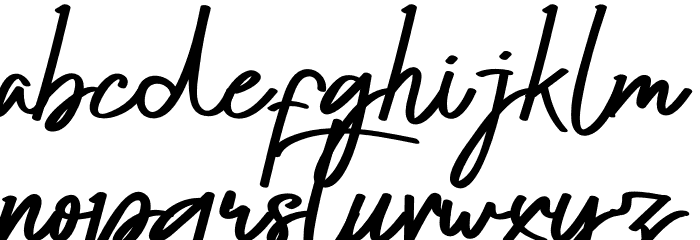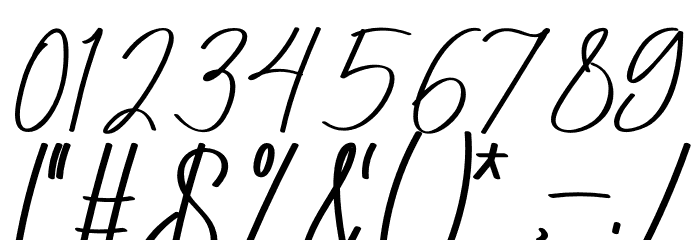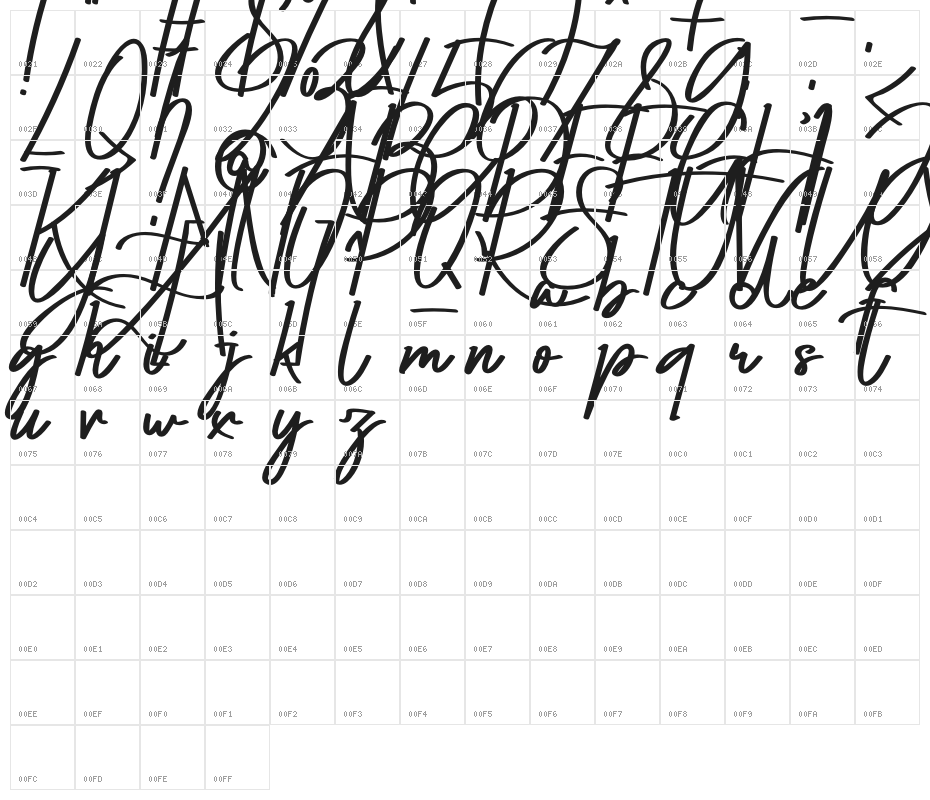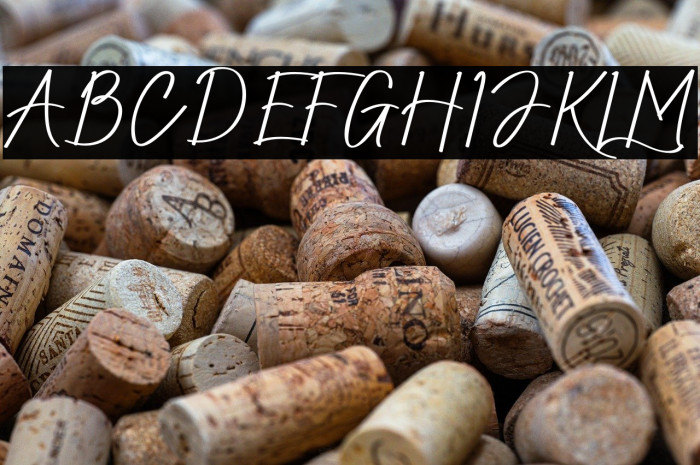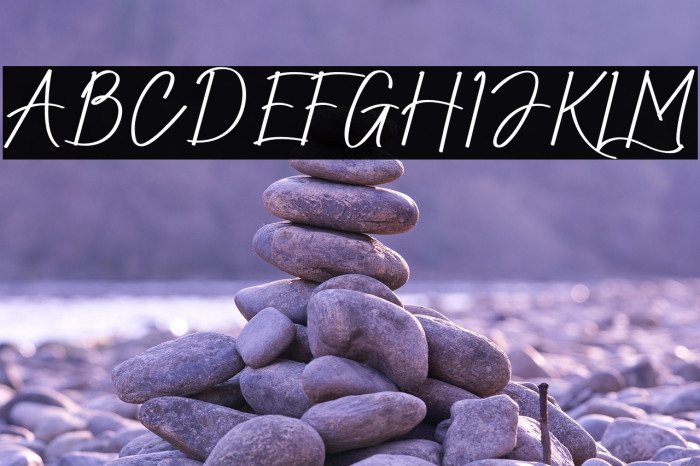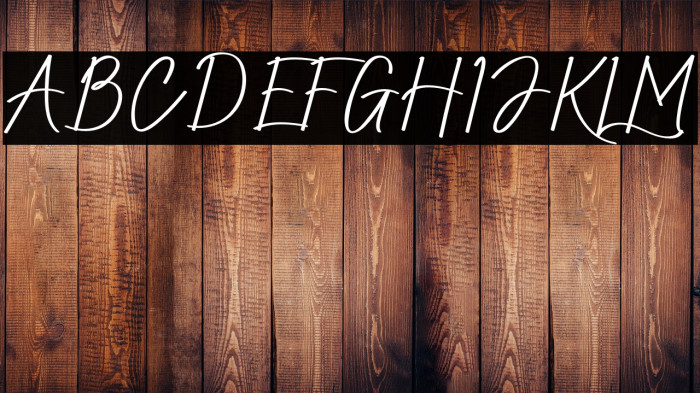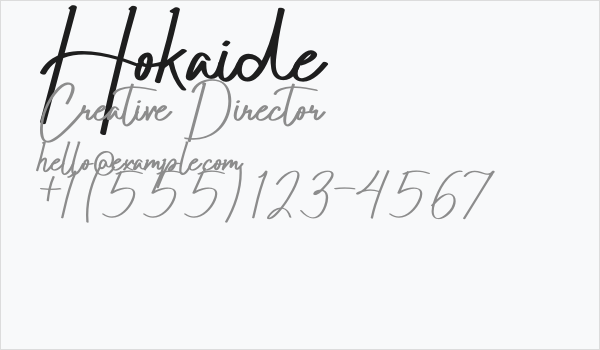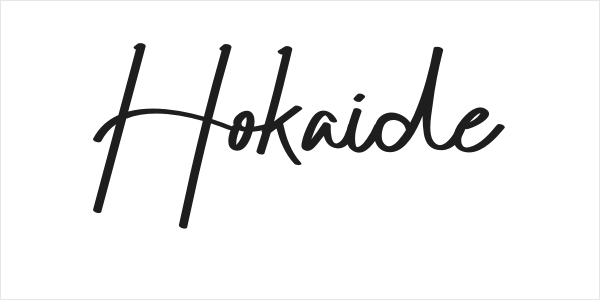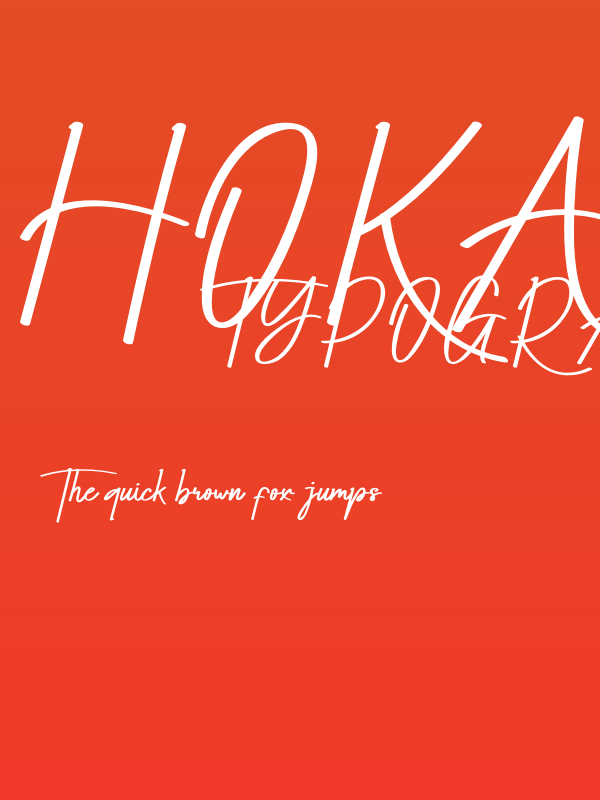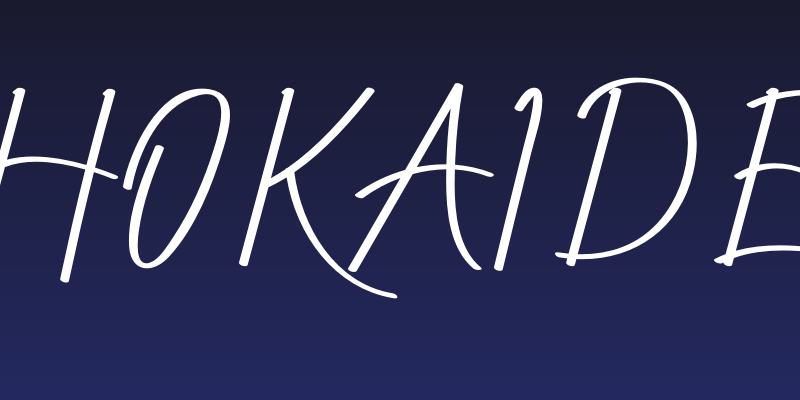
Hokaide Font
This font features a dynamic and flowing script style, characterized by its elegant and fluid strokes. The uppercase letters are tall and slender, with a slight slant that adds a sense of motion and grace. The lowercase letters are more bold and expressive, with a playful and artistic flair. The numerals and special characters maintain the same lively and cursive aesthetic, making the font versatile for various creative applications. The overall design is both modern and timeless, suitable for projects that require a touch of sophistication and personality.
A dynamic and flowing script font with elegant, fluid strokes.
- Proposed Projects: Ideal for wedding invitations, branding, logo design, and social media graphics.
- Use Case: Logos, Invitations, Branding